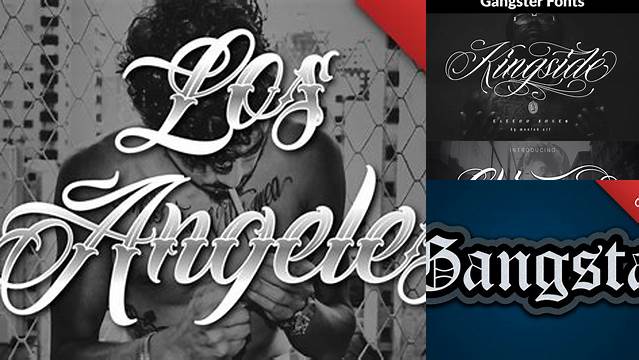
Explore Gangster Cursive Fonts With A Free Generator
Hey guys! Ever wanted to add a touch of rebellious flair to your designs? Maybe you're working on a project that needs a bit of that classic, old-school gangster vibe? Well, you're in luck! Today, we're diving headfirst into the world of gangster cursive fonts, and how you can use a fantastic gangster cursive fonts generator to create some seriously cool text. This guide is your ultimate resource to understanding these fonts, finding the best generators, and using them effectively. Get ready to transform your ordinary text into something extraordinary!
What are Gangster Cursive Fonts?
Let's get down to basics, shall we? Gangster cursive fonts are more than just letters; they're a statement. They often draw inspiration from the iconic lettering seen in classic gangster movies, vintage signage, and the overall aesthetic of the roaring twenties and beyond. Think of the elaborate, flowing scripts used on everything from liquor labels to the opening credits of your favorite crime dramas. These fonts are all about conveying a sense of history, power, and a hint of danger. They're the visual embodiment of cool, and they can instantly elevate your design. When you choose a gangster font, you're not just choosing a typeface; you're choosing a persona. The best fonts embody a spirit of rebellion and vintage charm. They are a fantastic way to add depth and authenticity to projects. They often feature elaborate flourishes, elegant curves, and a calligraphic style, making your text visually stunning and memorable. These fonts typically feature a blend of sharp angles and smooth curves, which is a hallmark of the gangster aesthetic. The style evokes a sense of old-world charm and timeless appeal, reminiscent of the golden age of gangsters. They're all about making a statement. The best of these fonts are not just pretty; they also communicate a story and an emotion, making them the perfect tool for creative endeavors that require a bit of edge and personality. These fonts aren't just about the individual letterforms; they're about the overall impression they create. The spacing between the letters, the weight of the strokes, and the general flow of the text all play crucial roles in creating that sought-after gangster vibe. Understanding these nuances is key to using these fonts effectively. They are often carefully crafted to mimic the look of classic handwriting, offering a personal touch that can transform the feel of any design. The overall goal is to give your text an authentic, handcrafted look, adding character to any project. These fonts give you a taste of a bygone era, filled with style and sophistication, and they are perfect for all kinds of projects.
Top Features of a Great Gangster Cursive Fonts Generator
So, you're on the hunt for the perfect gangster cursive fonts generator? Great! But what exactly makes a generator stand out from the crowd? Let's break down the key features you should be looking for. First and foremost, a top-notch generator should offer a wide variety of font styles. Variety is the spice of life, and it's definitely the spice of a great font generator. You want options, and more options! Look for generators that provide a diverse range of fonts, from classic, elegant scripts to more gritty and stylized options. This way, you can find the perfect font to match the specific tone and vibe of your project. The best generators offer customization options. This is the secret sauce that turns a good generator into a great one. The ability to tweak your text is essential. Things like adjusting the size, spacing, and color of your text can make a huge difference in the final result. Customization allows you to create a font that truly represents your personal style. The best gangster cursive fonts generators offer options to modify these aspects easily. Easy of use is crucial. Nobody wants to spend hours wrestling with complicated software. A user-friendly interface is key. It should be easy to navigate. It should provide simple, intuitive controls. With this, you can generate your fonts quickly and effortlessly. A great generator will have a simple process. Just input your text and make the necessary adjustments. This kind of simplicity ensures a seamless and enjoyable experience. A good generator should also offer download options. Being able to download your generated fonts in different formats is important for versatility. The ability to download in popular formats like PNG, SVG, or even as a font file will allow you to use your custom text across various platforms and applications. You don't want to be stuck with a font you can't use. Free is always a bonus! While many high-quality generators come with a price tag, there are plenty of free options available. If you are on a budget or just starting out, free generators can be a great way to experiment and find the perfect font without breaking the bank. Consider these features when selecting a gangster cursive fonts generator.
How to Use a Gangster Cursive Fonts Generator Effectively
Alright, so you've found a gangster cursive fonts generator you love. Now what? How do you actually use it to create killer designs? Let's dive into some tips and tricks to help you make the most of your font generator. First, choose the right font for your project. This might seem obvious, but it's crucial! Think about the overall message and tone of your project. Are you going for something bold and rebellious, or something more elegant and refined? This will help you narrow down your font choices and select the one that best fits your needs. It also is important to consider the legibility of your font. While a gangster cursive font can be eye-catching, you don't want it to be so elaborate that it's difficult to read. If your text is going to be used for a headline, a bolder, more readable font might be best. For smaller text, you may want to choose a font that's a little more streamlined. Experiment with different font sizes. The size of your font can dramatically affect its impact. Try adjusting the size until it looks perfect on your design. Sometimes, a small change can make a huge difference. Play with different colors. Don't be afraid to experiment with different colors. Gangster cursive fonts often look great in classic colors like black, white, and gold. They also look cool in bold colors like red and navy. The choice of color should complement the font and enhance the overall design. Pay attention to spacing and kerning. Spacing refers to the space between the letters in your text. Kerning refers to the space between specific pairs of letters. Adjusting these settings can improve the readability and visual appeal of your text. If the letters are too close together, the text can look crowded and hard to read. If they're too far apart, the text can appear disconnected. Use your fonts to create a cohesive design. Consider other design elements. The font should complement the other elements of your design, such as images, colors, and layout. Make sure everything works together harmoniously. Always remember the importance of balance and harmony. Be creative, and have fun! The most important thing is to have fun and experiment. Try different fonts, colors, and settings. See what works best for you. Don't be afraid to try something new. It's through experimentation that you will create awesome designs.
Best Uses for Gangster Cursive Fonts
So, where can you actually use these amazing gangster cursive fonts? The possibilities are practically endless, but here are some of the best applications to get your creative juices flowing. Branding and Logos: Gangster cursive fonts are perfect for creating brand identities. They can make logos, business cards, and other branding materials that need a bold, stylish look. Use them to create an unforgettable first impression. Movie Posters and Titles: If you're working on a film project, these fonts can be the perfect choice for movie posters and opening credits. They add a touch of drama and a classic feel. The style is perfect for genres like crime, action, and drama. Invitations and Announcements: For weddings, parties, or any other event, these fonts can make your invitations and announcements look elegant. The fonts have a look that will make your guests excited about your event. The fonts can add a touch of style to any event. Social Media Graphics: If you're looking to make a statement on social media, these fonts can help. They are great for creating eye-catching graphics and posts. You can use them on Instagram, Facebook, and other platforms to grab attention. T-shirts and Merchandise: Create custom t-shirts, posters, and other merchandise with a gangster vibe. The fonts are great for making cool designs. Create unique products that people will love. Websites and Blogs: Use these fonts for website headers, blog titles, and other design elements. They can give your website a unique look and personality. They make your content more visually appealing. Art and Creative Projects: These fonts are great for art projects. They add a distinctive style. You can make artwork, posters, or any creative project. With the variety of font options, the possibilities are endless. These are just some of the uses for the fonts. With a bit of creativity, you can use them in many other exciting ways. Don't be afraid to experiment and see where your imagination takes you!